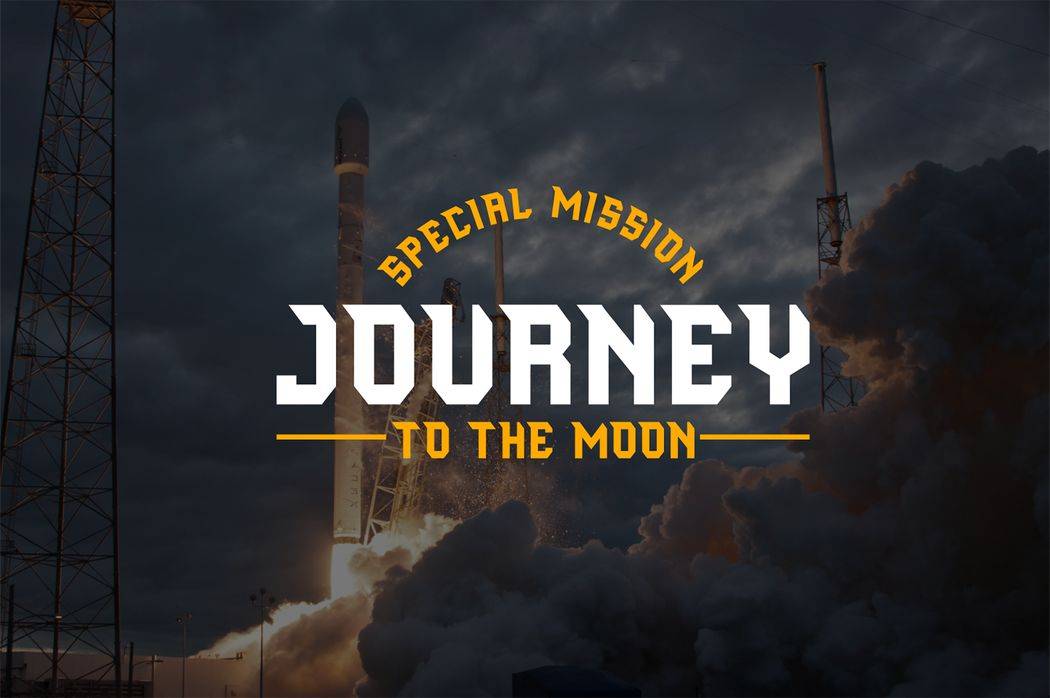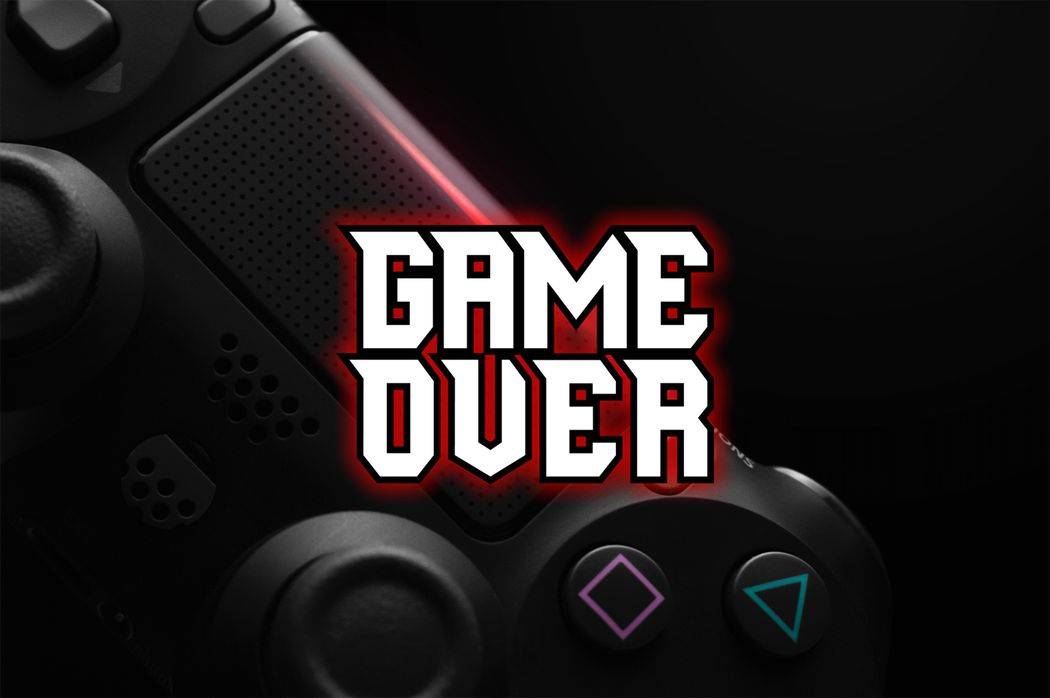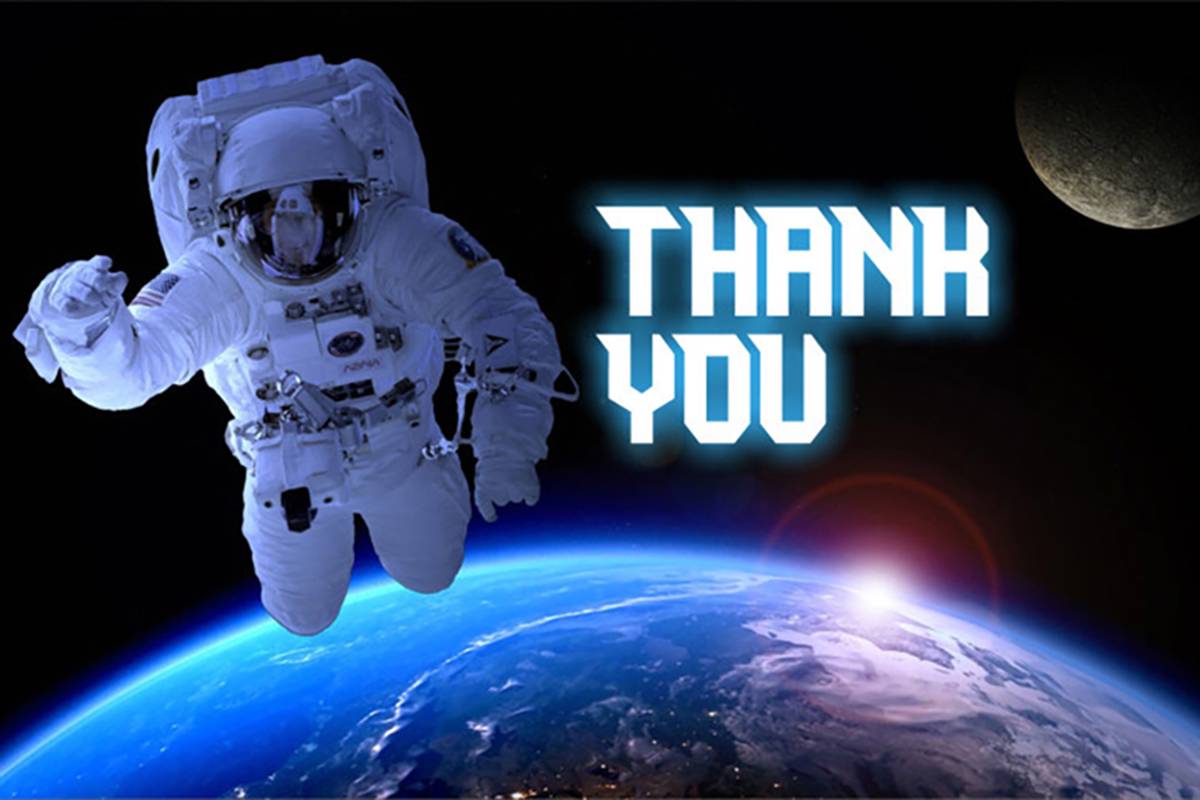
Big Space Font is a bold, geometric sans serif with a futuristic, angular design characterized by sharp edges and blocky letterforms. Its heavy weight and condensed spacing give it a strong, impactful presence, making it ideal for headlines, logos, and branding that need a modern, tech-inspired look. This font works well where a striking, edgy style is desired, especially in digital, gaming, or sci-fi themed projects.
Big Space Font
About Big Space Font
| Font family | Big Space Font |
| Designer | Nurf Designs |